20+ Free Disney Fonts to Enchant Your Next Project
Calling all craft enthusiasts, teachers, and Disney dreamers! Are you ready to sprinkle a little pixie dust on your designs? Look no further than this treasure trove of free Disney fonts that will make your projects sing with the magic of the Mouse House. Whether you’re crafting a personalized birthday card, creating captivating classroom materials, or designing a whimsical website, these fonts will add that extra touch of enchantment.
Free Mouse Memoirs Font
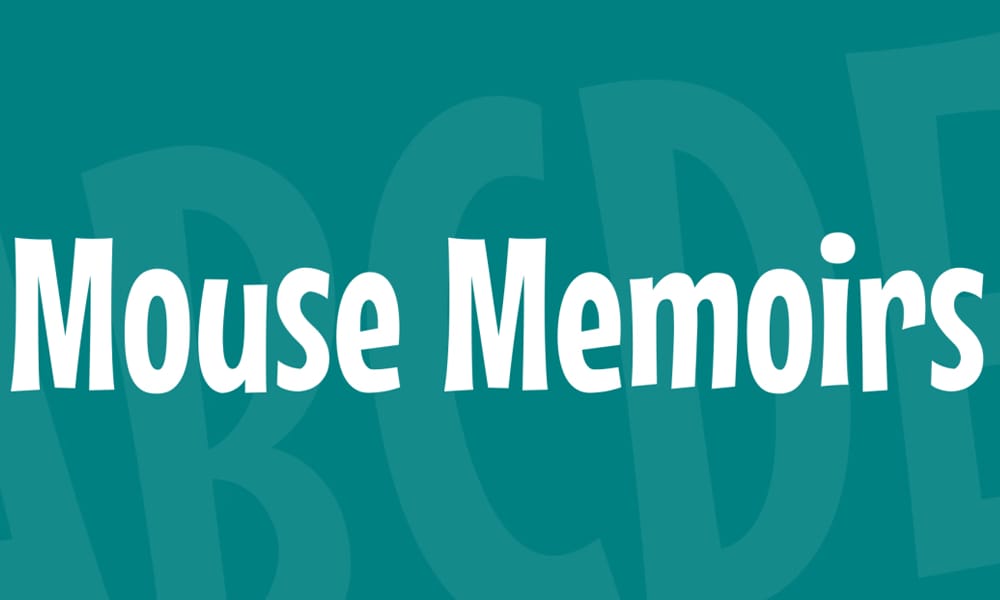
Let your creativity soar with this playful font that captures the spirit of classic Disney animation. Perfect for whimsical designs and projects that evoke a sense of nostalgia.
Disney Heroic
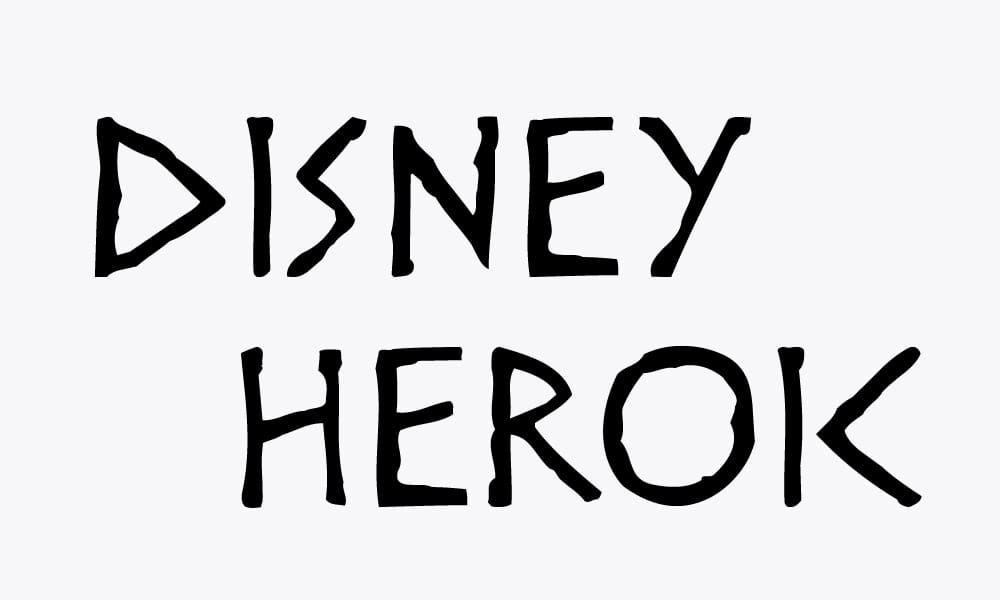
Bold and adventurous, this font is perfect for projects that need a touch of heroism and excitement. Ideal for superhero-themed designs, action-packed posters, and anything that calls for a bit of bravery.
Navidad Font
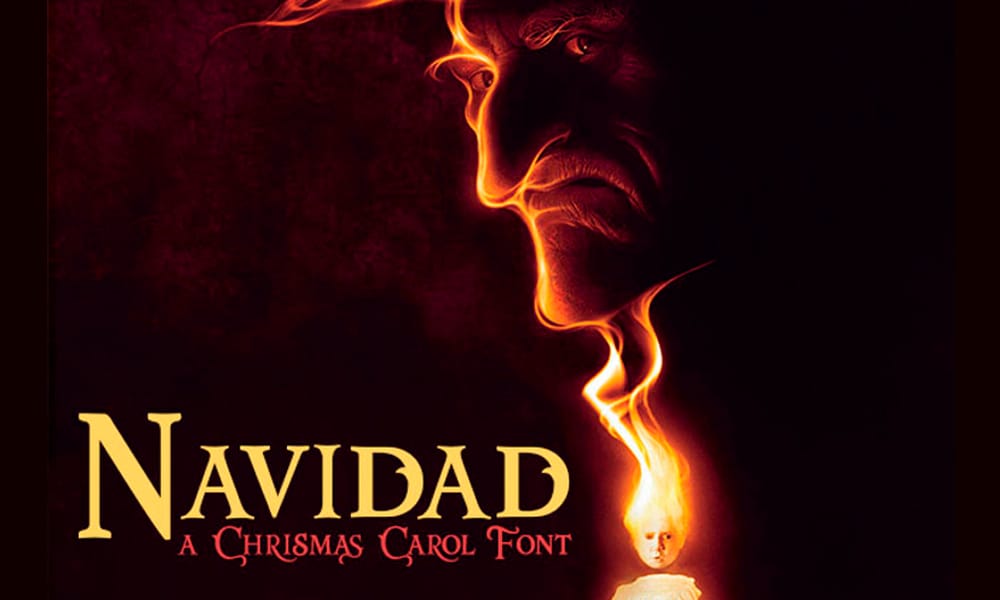
Bring the warmth and joy of the holiday season to your designs with this festive font. Perfect for Christmas cards, holiday decorations, and winter-themed projects.
Selznick NF Font
Inspired by the golden age of Hollywood, this elegant font adds a touch of sophistication to any project. Ideal for wedding invitations, formal announcements, and designs that require a touch of class.
Wonder Night Display Font
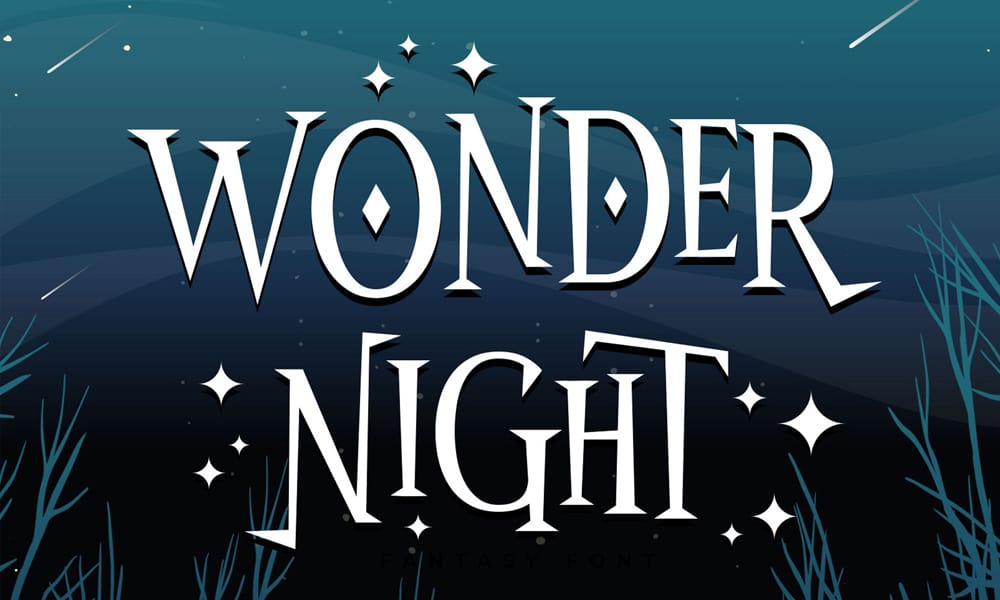
Whimsical and enchanting, this font is perfect for projects that need a touch of magic and wonder. Great for fairy tale-themed designs, children’s books, and anything that sparks the imagination.
Princess and The Frog Font
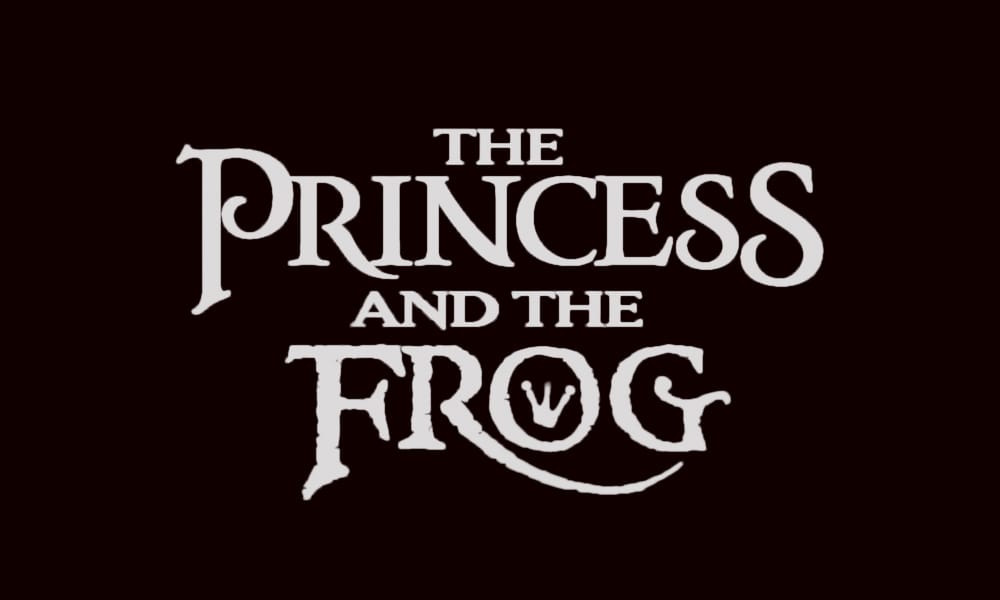
Transport yourself to the enchanting world of New Orleans with this whimsical font inspired by the beloved Disney film. Perfect for invitations, party decorations, and projects that celebrate the spirit of the bayou.
Tron Font
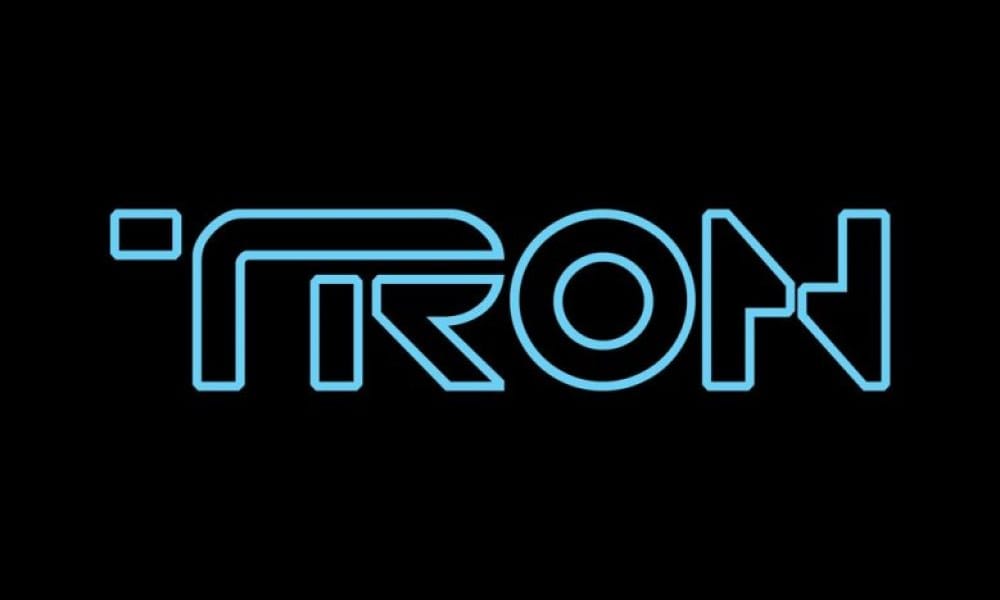
Futuristic and sleek, this font captures the iconic aesthetic of the Tron films. Ideal for tech-themed designs, sci-fi projects, and anything that calls for a cutting-edge look.
Bradley Gratis Font
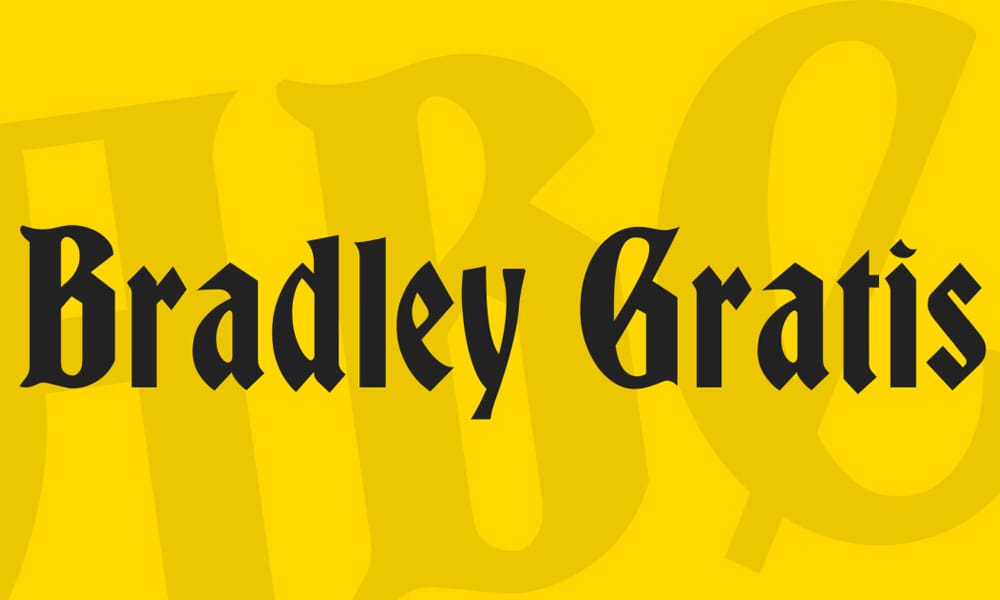
This bold and playful font is reminiscent of classic Disney animation and evokes a sense of fun and adventure. Perfect for children’s projects, playful designs, and anything that needs a touch of whimsy.
Diogenes Font
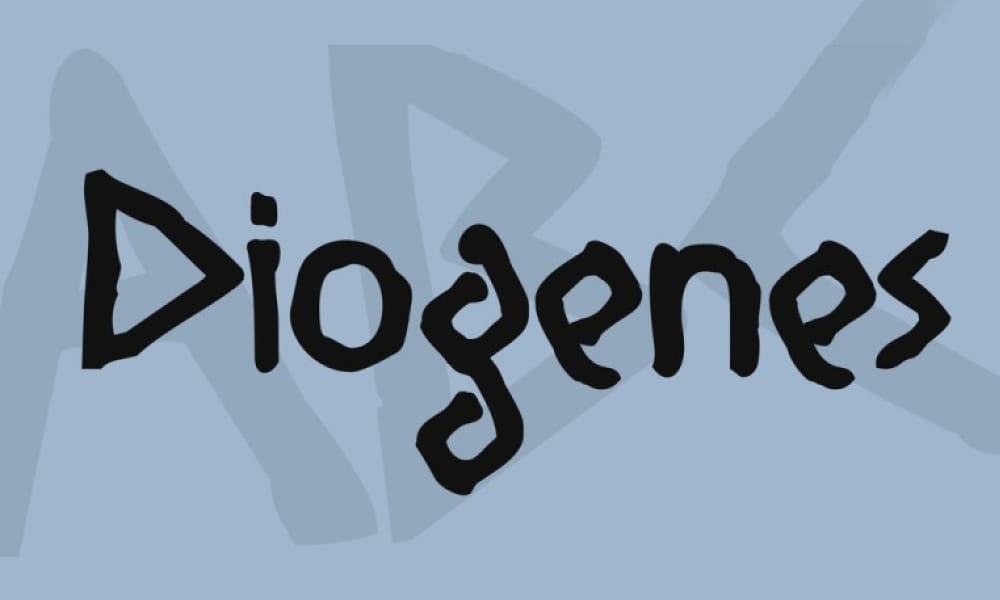
With its unique and intricate design, this font adds a touch of mystery and intrigue to any project. Ideal for fantasy-themed designs, book covers, and projects that require a bit of magic.
AL Cinderella Font
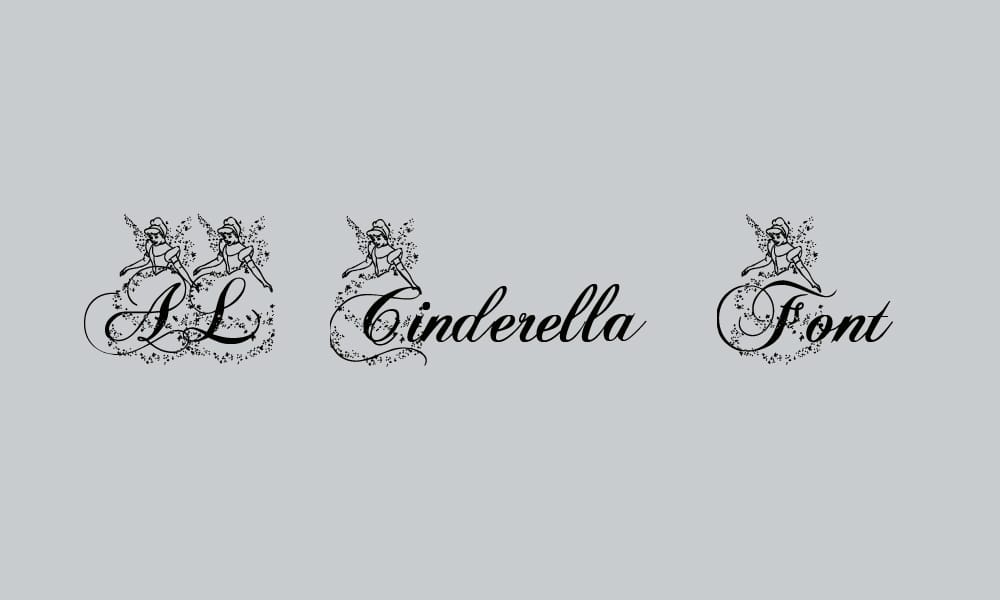
Inspired by the timeless fairy tale, this elegant and graceful font is perfect for wedding invitations, princess-themed designs, and projects that require a touch of elegance.
Morning Routine Handwritten Font
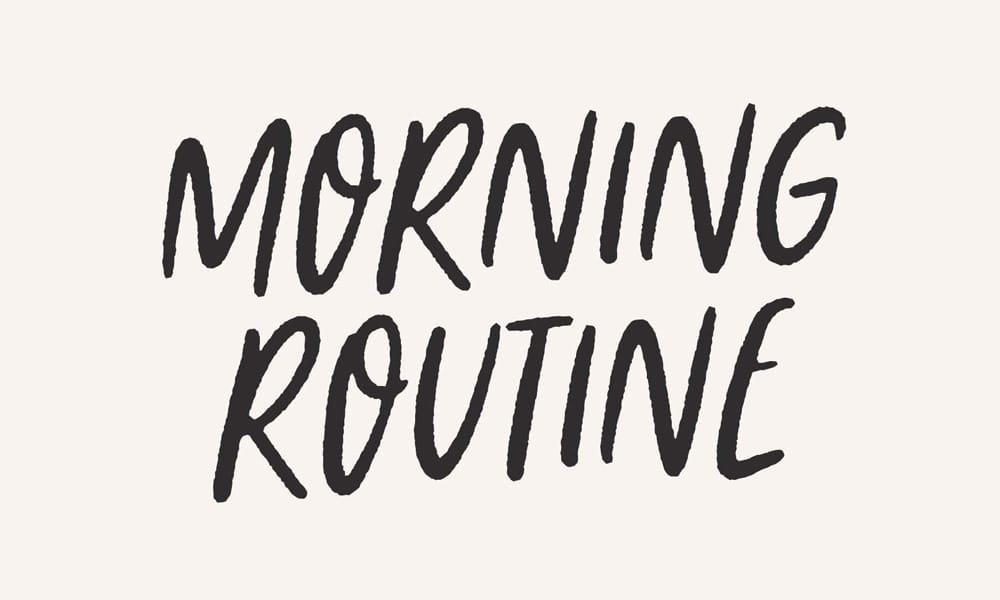
This charming handwritten font adds a personal and playful touch to any project. Perfect for journaling, scrapbooking, and designs that call for a handwritten feel.
Mickey
Capture the iconic look of Mickey Mouse with this playful and cheerful font. Perfect for birthday invitations, Disney-themed projects, and anything that celebrates the spirit of the beloved mouse.
Astrud Font
This bold and stylish font is inspired by the golden age of Hollywood and adds a touch of glamour to any project. Ideal for movie posters, vintage-themed designs, and projects that require a touch of retro charm.
Disney Font
This classic Disney font captures the essence of the magical world of Disney. Perfect for a wide range of projects, from invitations to posters to social media graphics.
New Waltograph Font
Inspired by Walt Disney’s own handwriting, this font adds a personal and authentic touch to any project. Ideal for signatures, personalized notes, and projects that require a touch of Disney history.
Lost Fish Font
This whimsical and playful font is inspired by the underwater world of Finding Nemo. Perfect for children’s projects, ocean-themed designs, and anything that celebrates the beauty of the sea.
Star Jedi
Unleash the power of the Force with this iconic Star Wars font. Perfect for fan art, movie posters, and anything that celebrates the epic saga.
Dan’s Disney Font
This fun and whimsical font captures the spirit of classic Disney animation. Perfect for a wide range of projects, from invitations to posters to social media graphics.